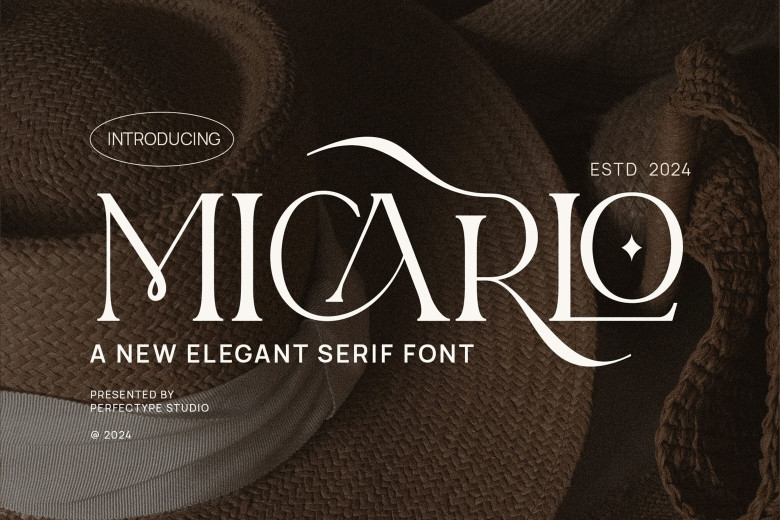
Micarlo Font
Micarlo is an elegant and unique serif font perfect for branding and logo designs. Featuring sophisticated yet contemporary lines, this font can be used in logo and branding projects of all kinds including wedding designs and advertisements on social media, as well as designs, labels, packaging for products, photography, watermarks, invitations, stationery etc. Easily read font! Micarlo can help make projects easily legible!
Micarlo Serif Font